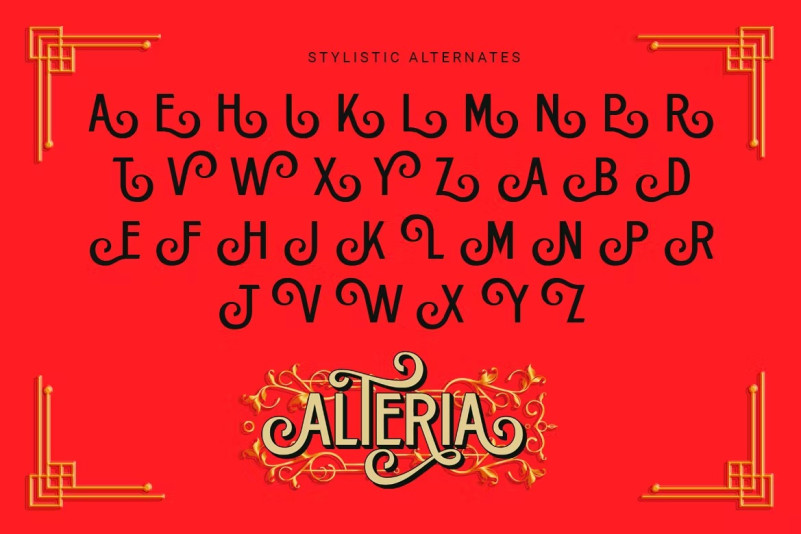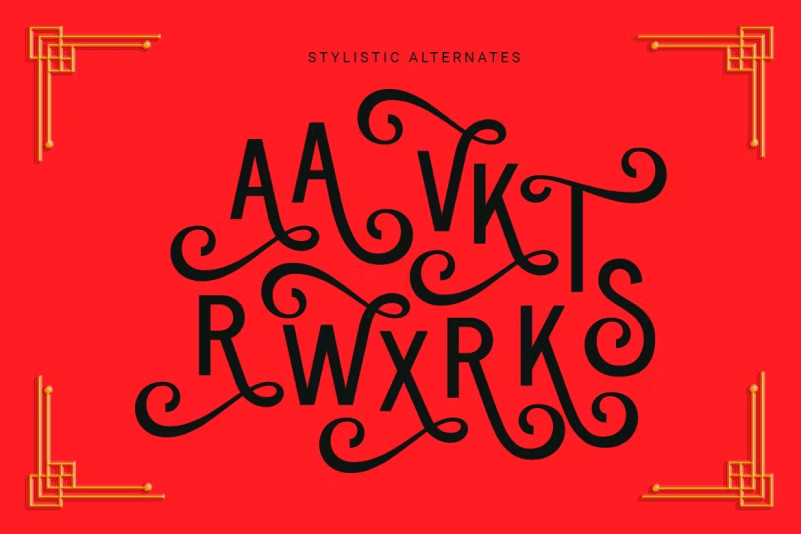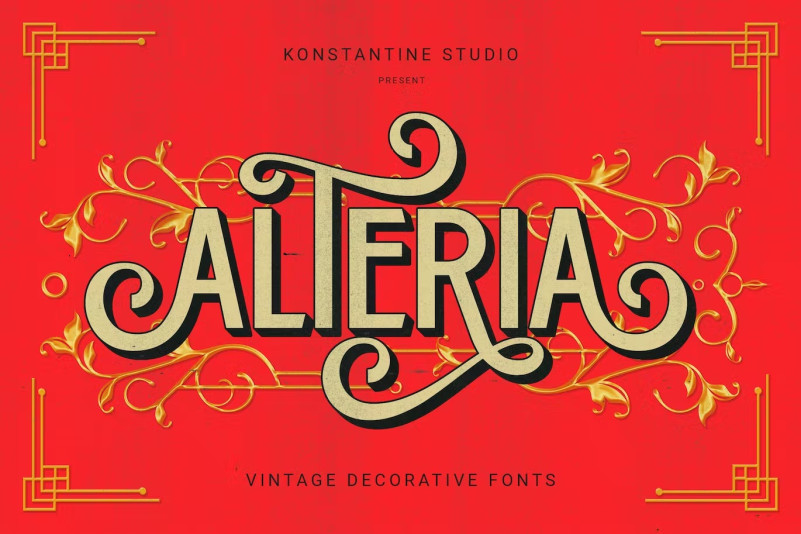
Alteria Font
Alteria Font is a decorative vintage font. It was inspired by the trend of the Victorian era, print headlines, retro signs, newsletters and advertisements from the 50s.